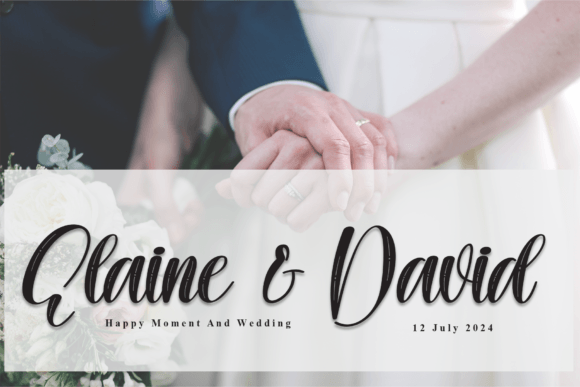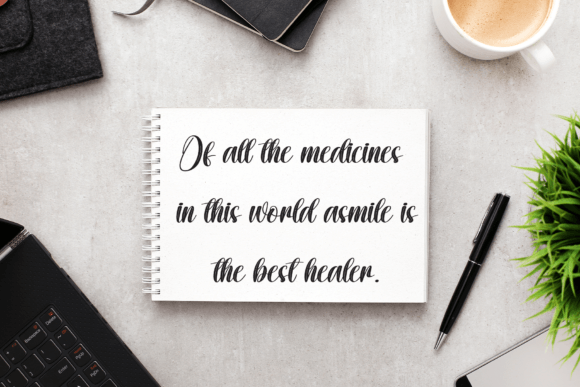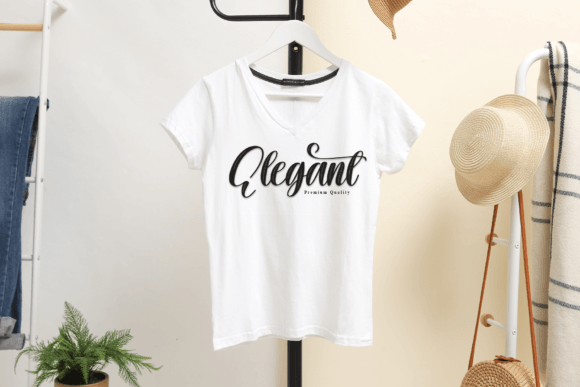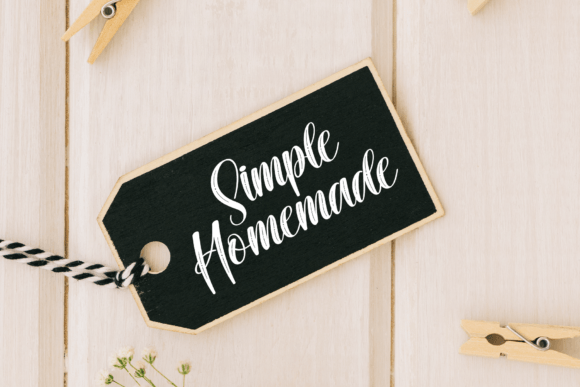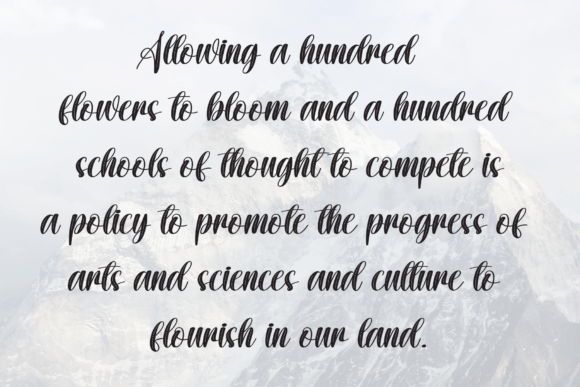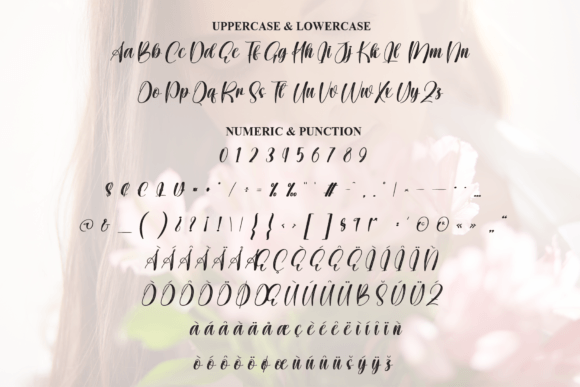
Introducing Delight Font: Elevate Your Designs with Elegance and Charm
In the world of typography, fonts play a crucial role in conveying the tone and personality of a design. For those seeking a stylish and sophisticated look, Delight Font is an excellent choice. This beautiful handwritten script font is designed to exude elegance and charm, making it perfect for adding a personal touch to various design projects.
The Characteristics of Delight Font
Delight Font boasts fluid strokes and a natural flow, creating a captivating and refined appearance. Its handwritten script style gives it a unique and organic feel, setting it apart from more traditional fonts. The fluidity of the strokes adds a sense of movement and dynamism, making it ideal for designs that require a touch of sophistication and glamour.
Delight Font is versatile and can be used in a variety of creative projects. Whether you’re designing invitations, branding materials, or social media graphics, this font brings a sense of warmth and creativity to any design. Its elegant appearance makes it suitable for:
- Wedding Invitations: Add a touch of romance and sophistication to your wedding invitations with Delight Font.
- Branding: Use Delight Font to create a unique and memorable brand identity that exudes elegance and charm.
- Social Media Graphics: Elevate your social media graphics with a font that adds a touch of personality and style.
- Stationery: Create beautiful stationery, such as letterheads, thank-you cards, and greeting cards, with Delight Font.
Why Choose Delight Font?
With so many fonts available, why choose Delight Font? Here are a few reasons why designers and crafters love this font:
- Unique and Creative: Delight Font offers a distinctive and creative look that sets it apart from more traditional fonts.
- Elegant and Sophisticated: The font’s fluid strokes and natural flow create an elegant and sophisticated appearance.
- Versatile: Delight Font can be used in a variety of design projects, from invitations to branding materials.
- Easy to Read: Despite its elegant appearance, Delight Font is easy to read, making it perfect for body text and headings.
Tips for Using Delight Font
To get the most out of Delight Font, here are a few tips to keep in mind:
- Pair with Neutral Colors: Pair Delight Font with neutral colors, such as white, beige, or gray, to create a clean and elegant look.
- Use for Headings and Titles: Use Delight Font for headings and titles to add a touch of elegance and sophistication.
- Mix with Other Fonts: Mix Delight Font with other fonts to create a unique and creative look.
Delight Font is a beautiful and elegant handwritten script font that adds a touch of sophistication and charm to any design. Its fluid strokes and natural flow create a captivating appearance, making it perfect for designers and crafters seeking a unique and creative look. Whether you’re designing invitations, branding materials, or social media graphics, Delight Font is an excellent choice. With its versatility, elegance, and charm, Delight Font is sure to elevate your designs to the next level.